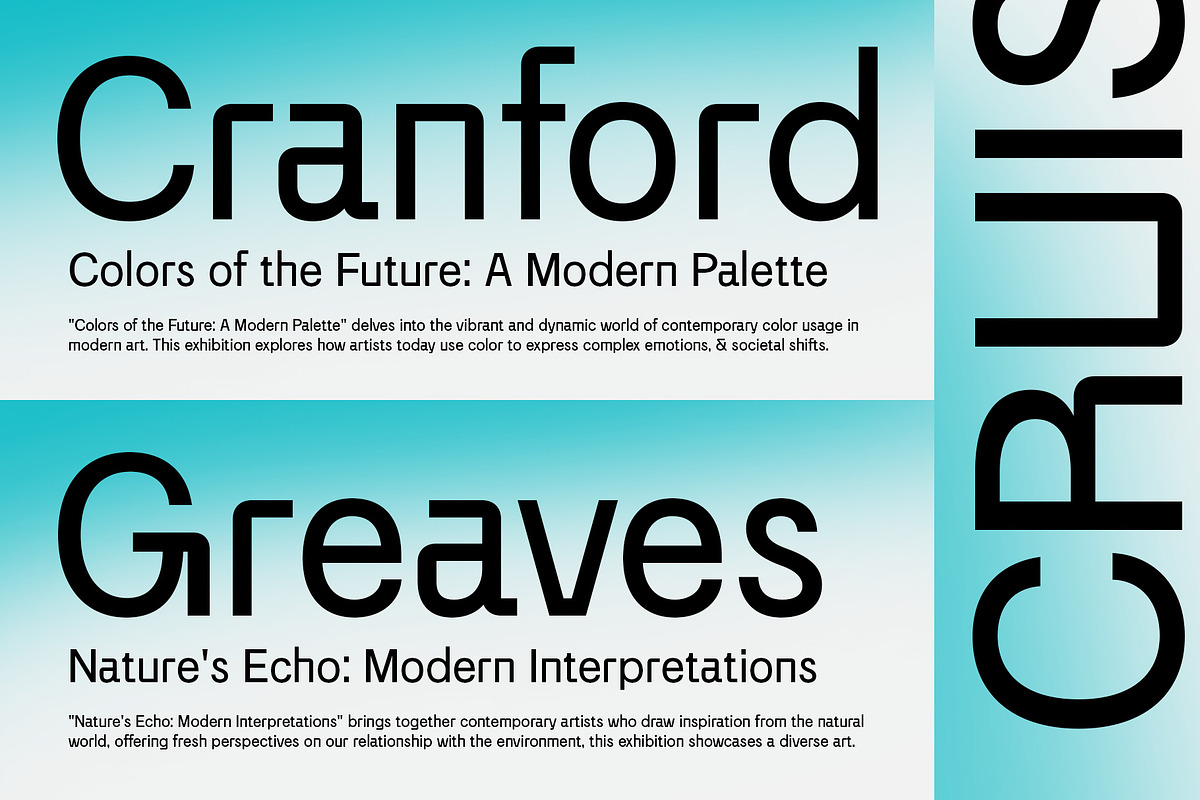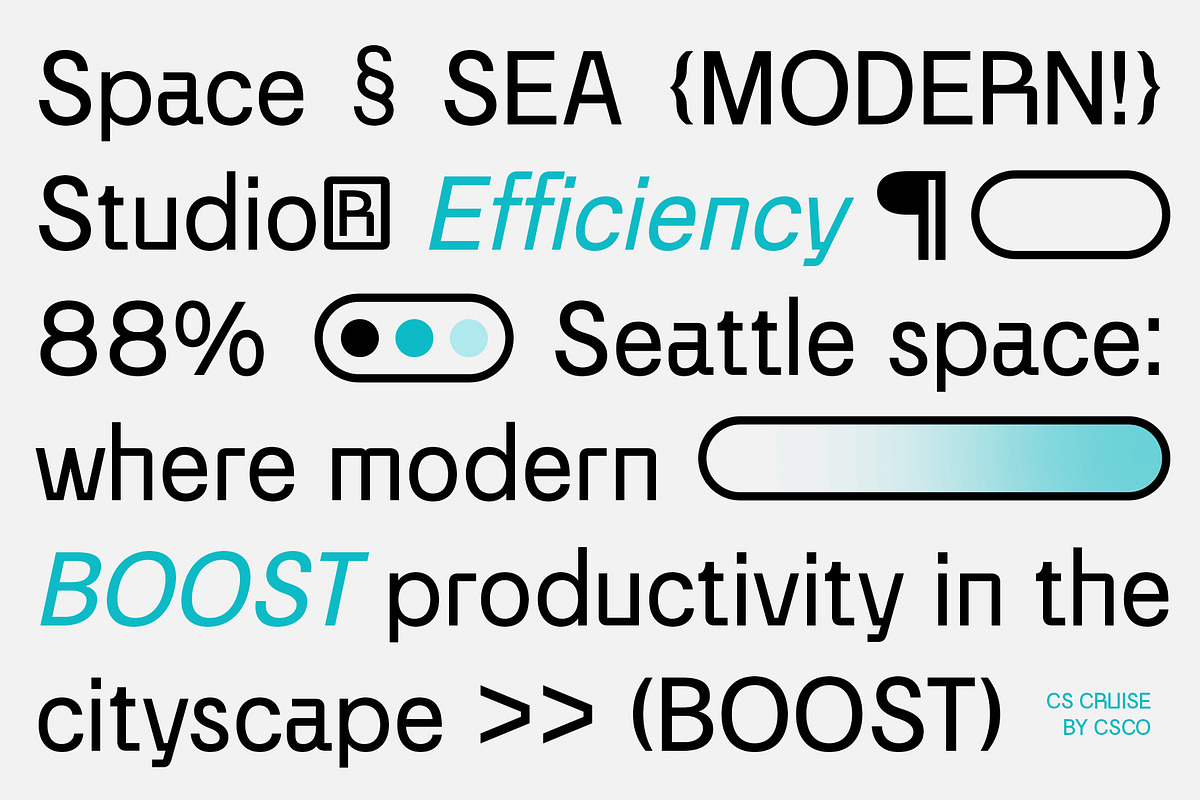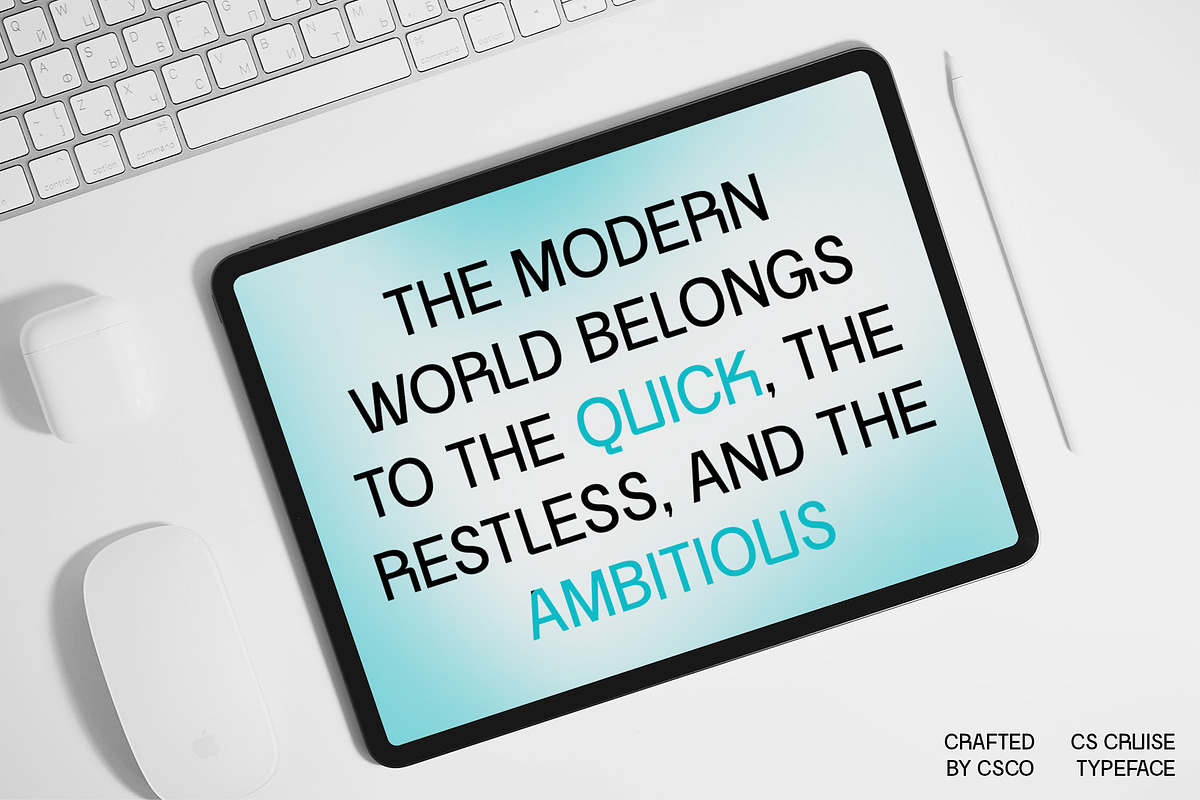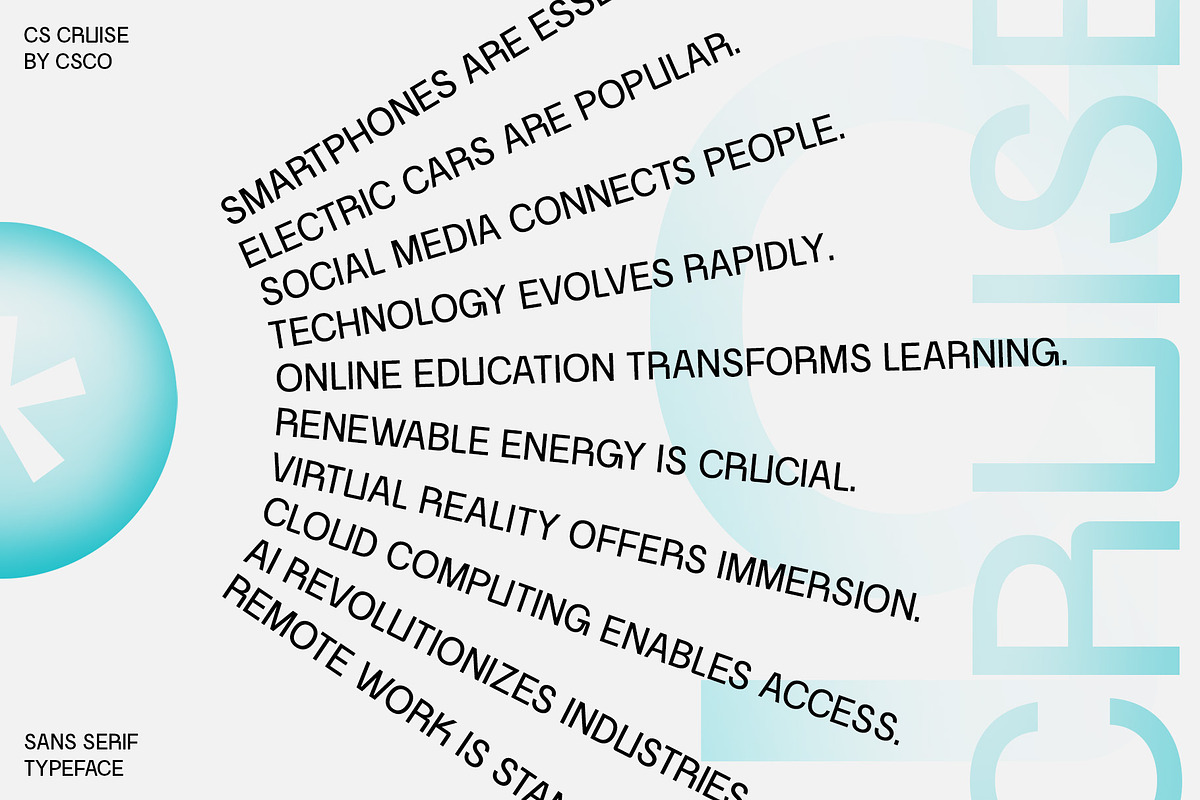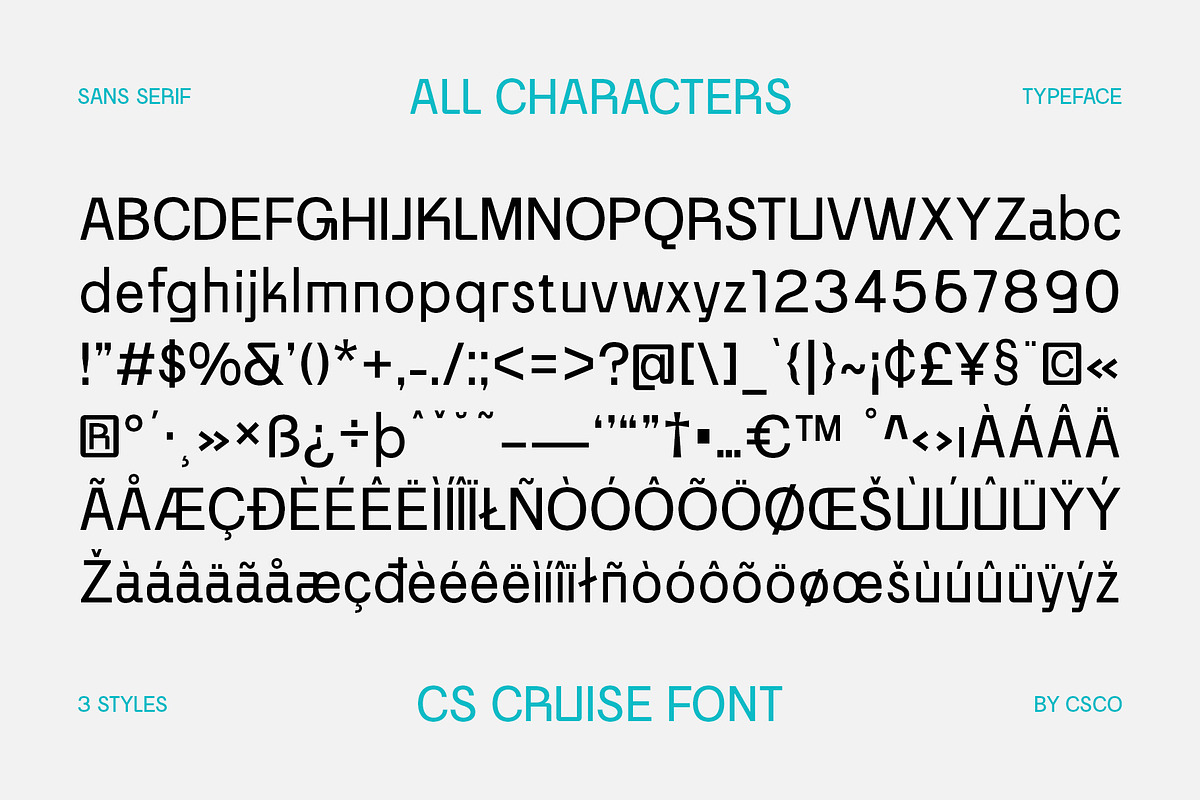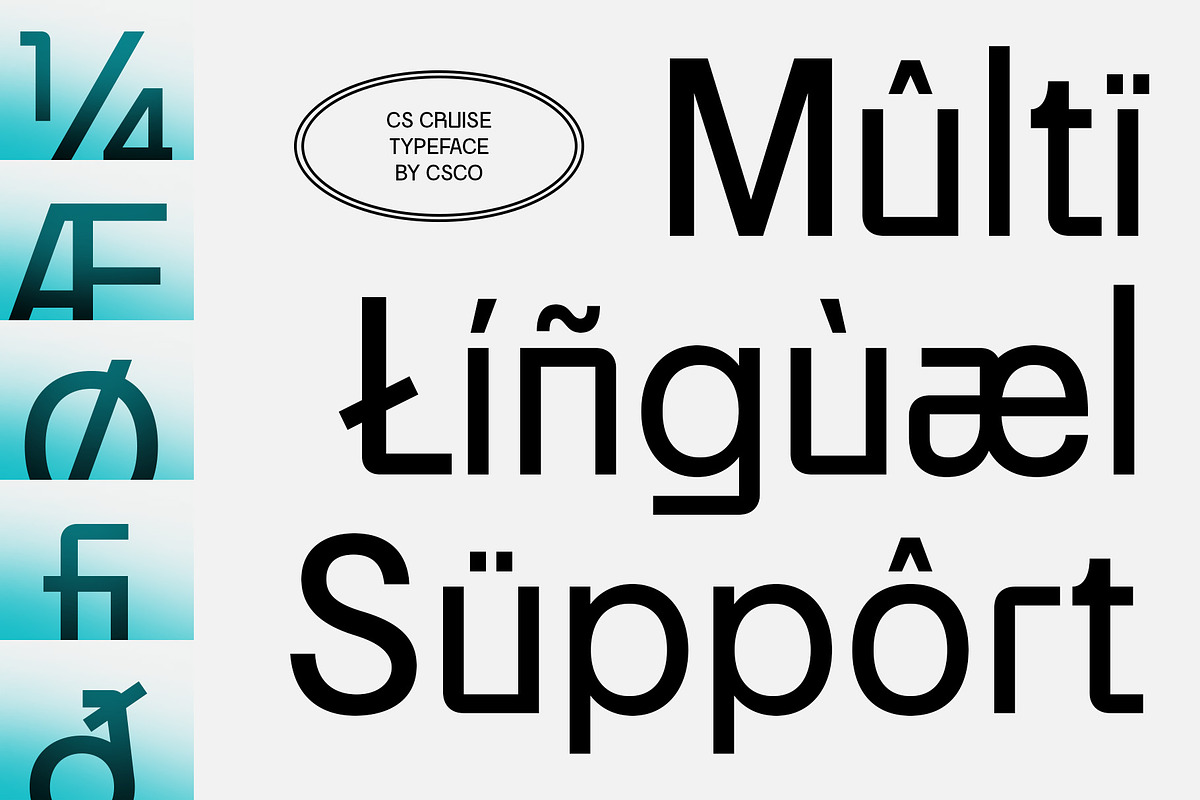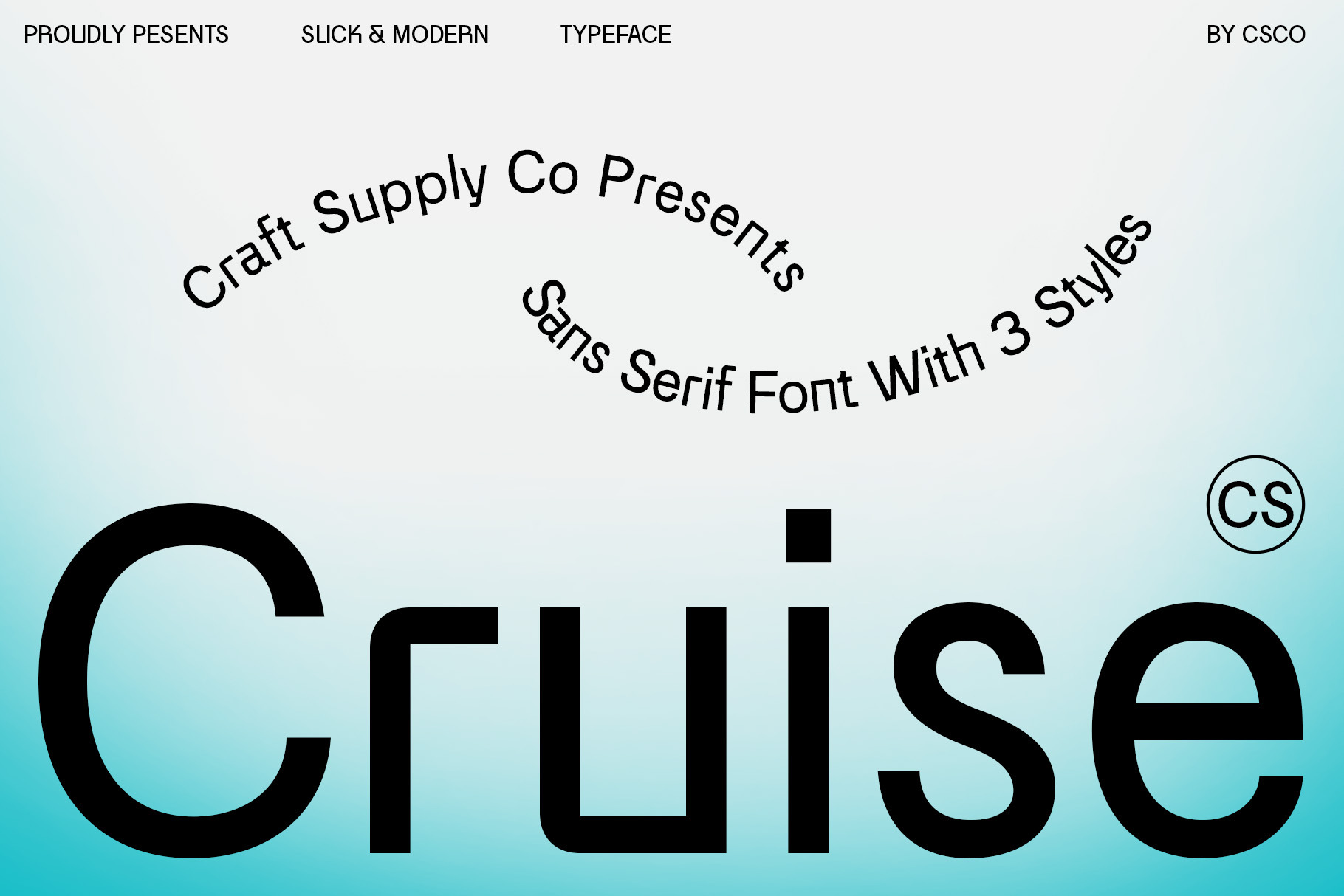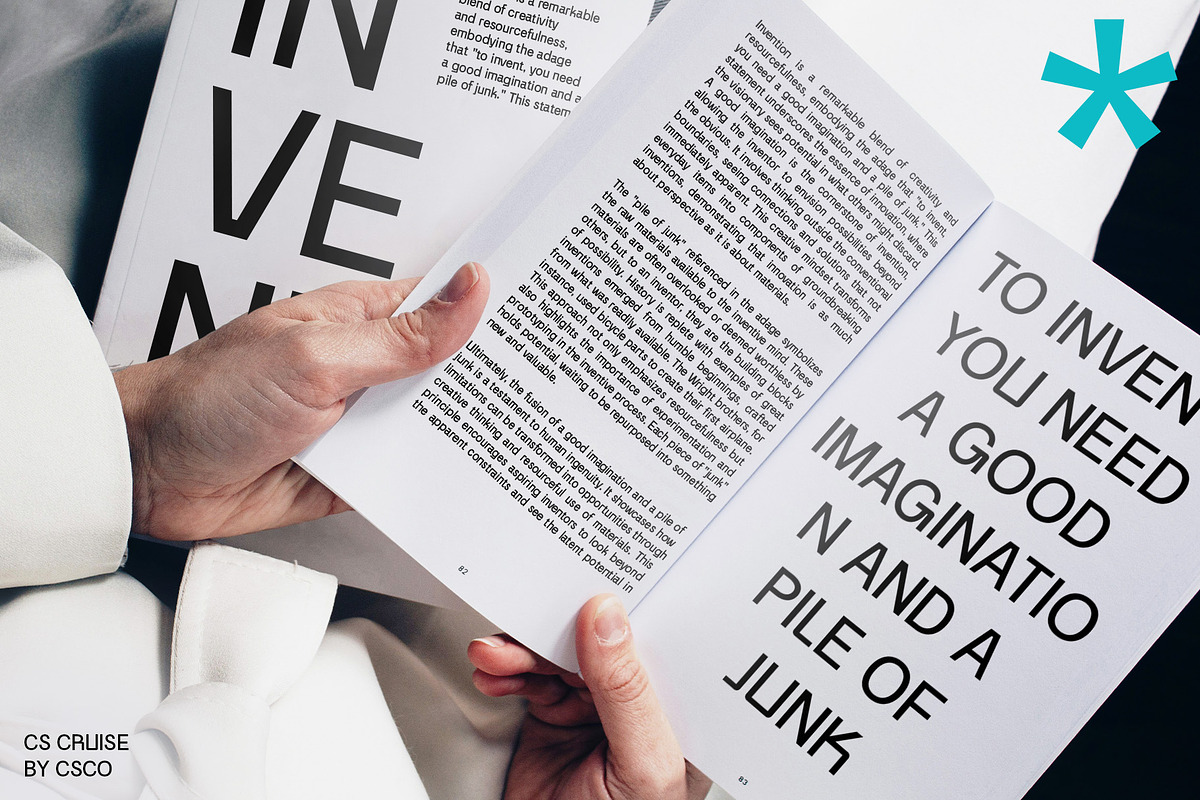
CS Cruise – Modern Font
CS Cruise – Modern Font: Navigate Your Designs with Contemporary Elegance
Introduction CS Cruise is a modern sans-serif font that offers a contemporary look, perfect for modern designs. With its clean and minimalist sans-serif design, this font provides a fresh impression that aligns with current design trends, making it suitable for a wide range of design projects.
Contemporary and Clean Design The clean and minimalist design of CS Cruise gives it a contemporary and stylish appearance. Its sans-serif design provides a modern look that is perfect for designs that prioritize simplicity and elegance.
Perfect for Modern Designs CS Cruise is suitable for use in various design projects that require a modern and stylish appearance. Whether you’re designing branding materials, websites, or advertisements, this font can help you achieve a fresh and contemporary look.
Enhance Your Designs with CS Cruise Whether you’re creating a sleek corporate identity or a stylish editorial layout, CS Cruise can help you navigate your designs with contemporary elegance. Its clean and minimalist design makes it a versatile choice for any design project that requires a modern and stylish appearance.